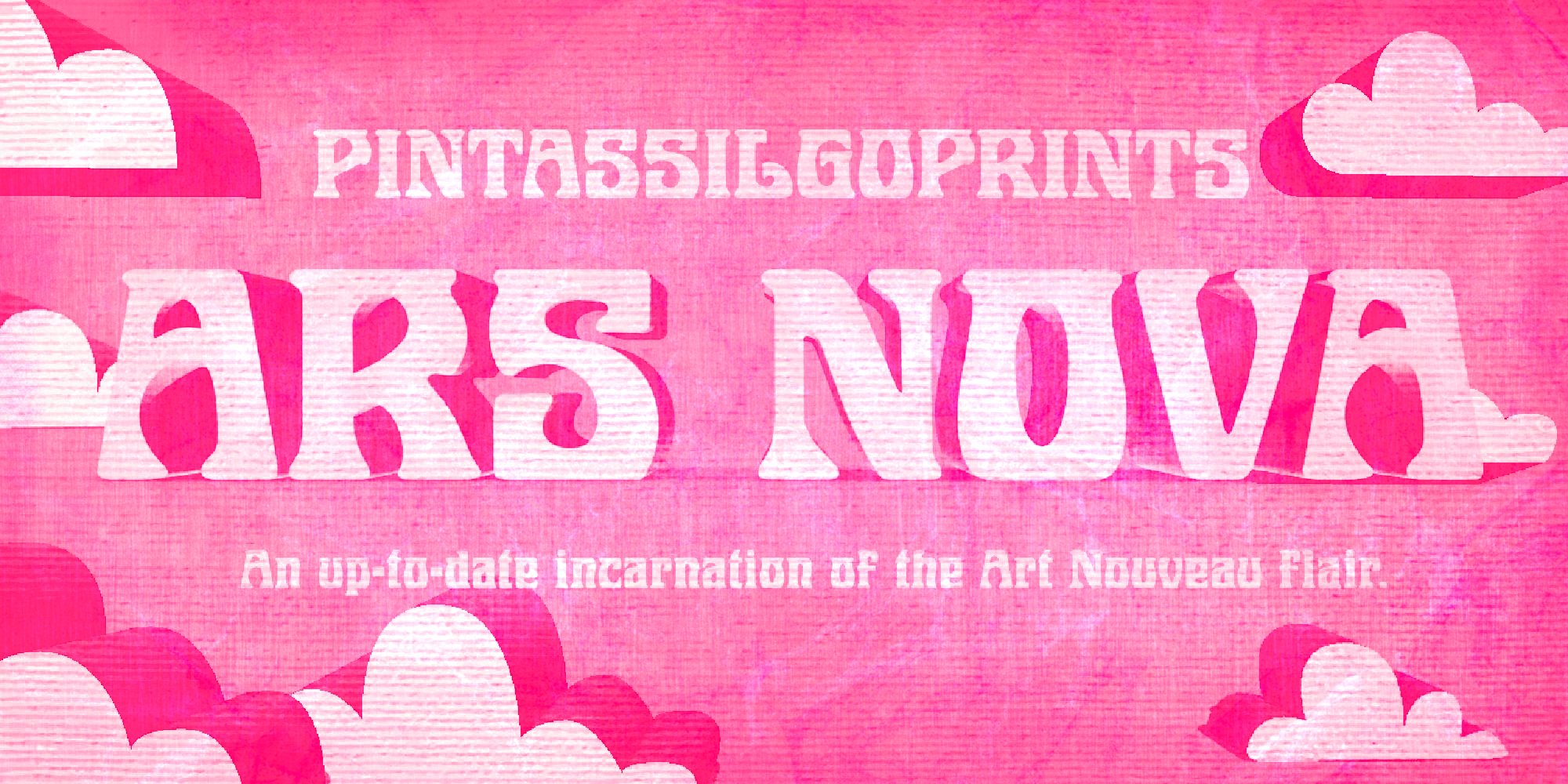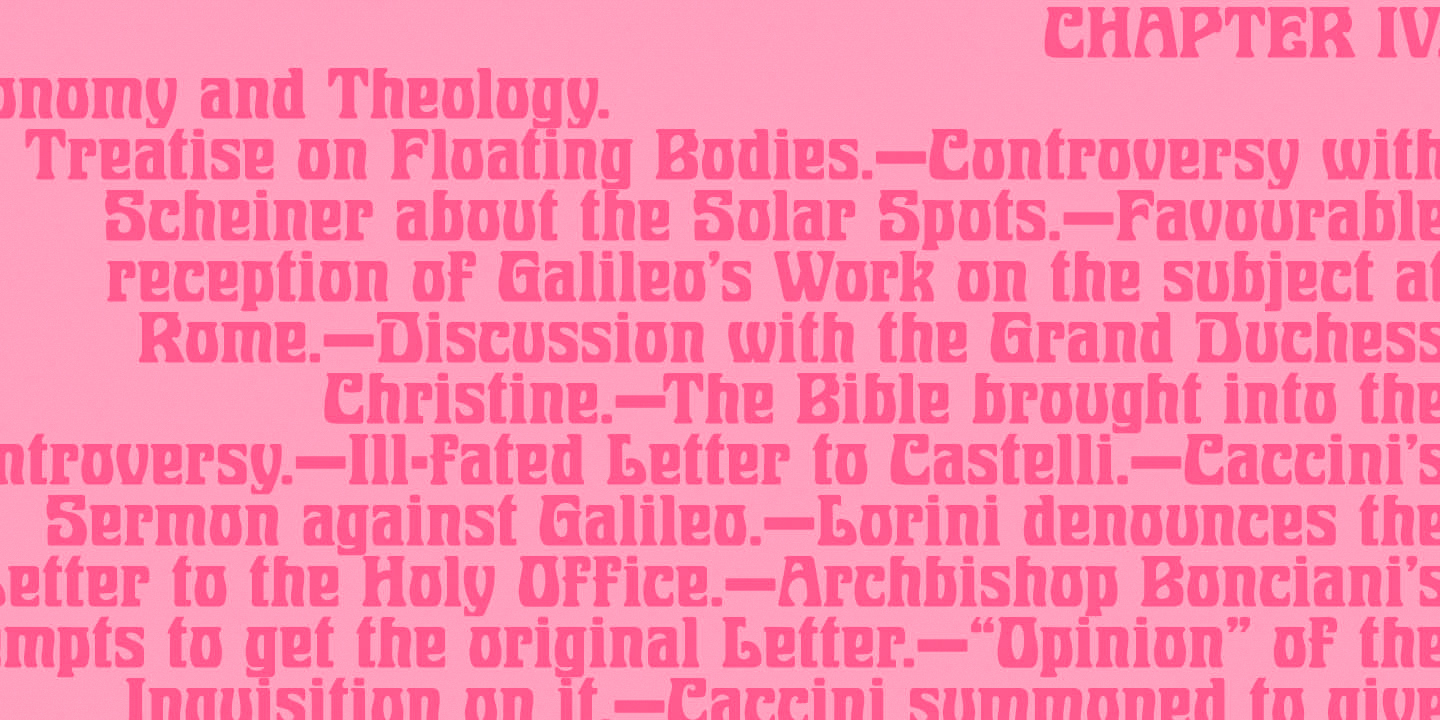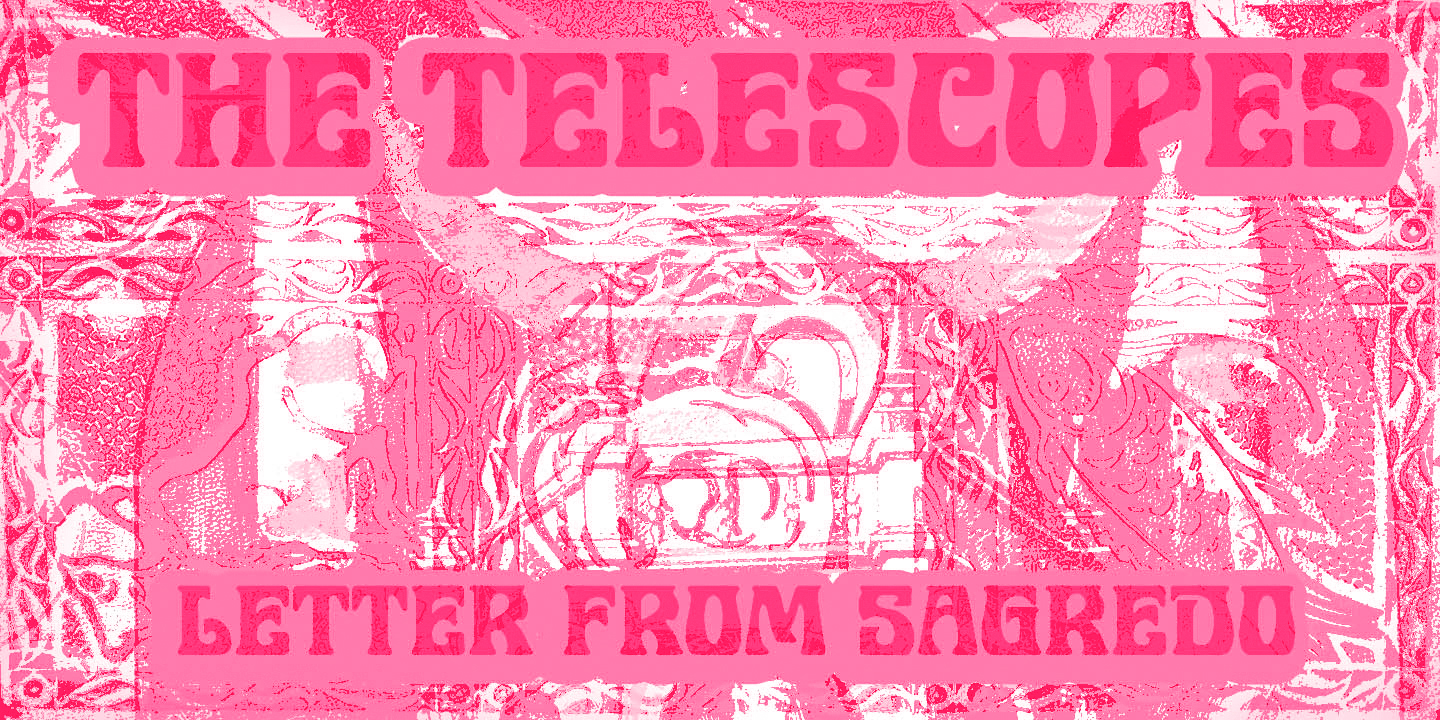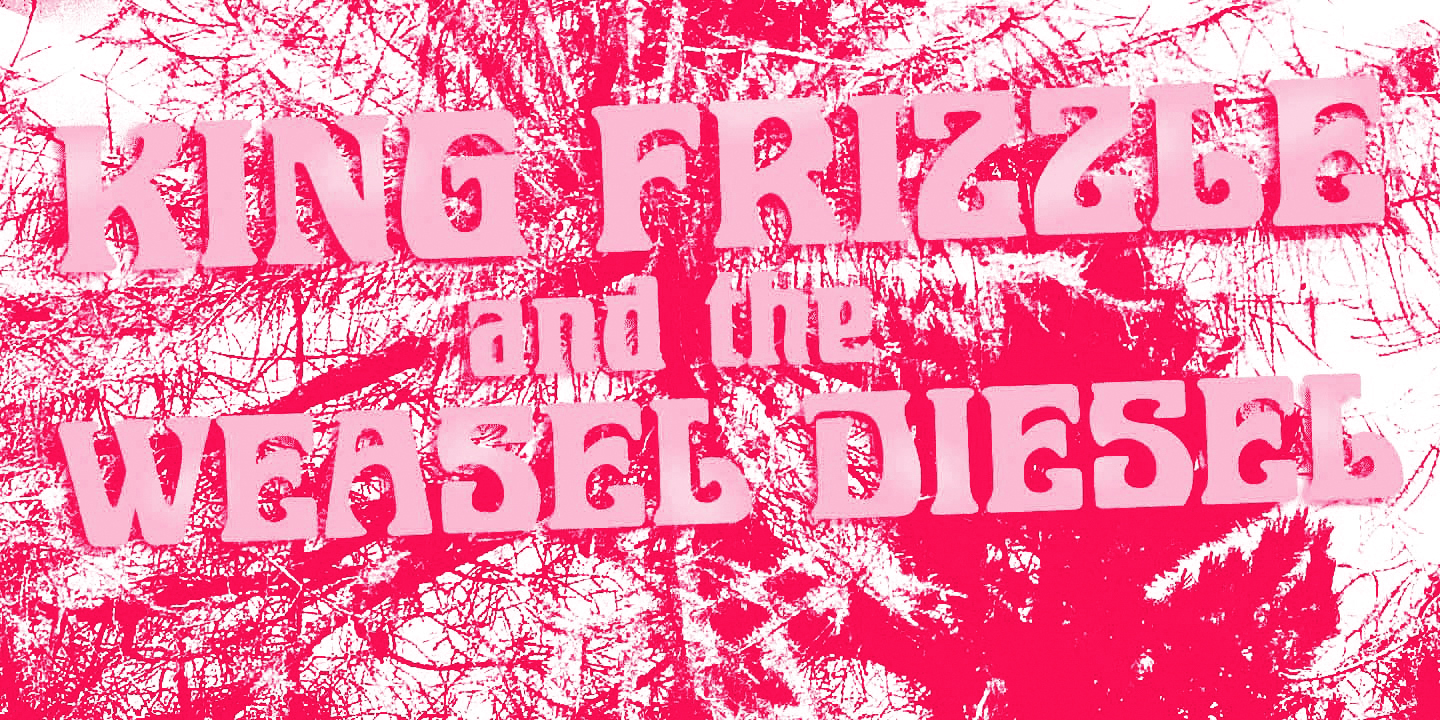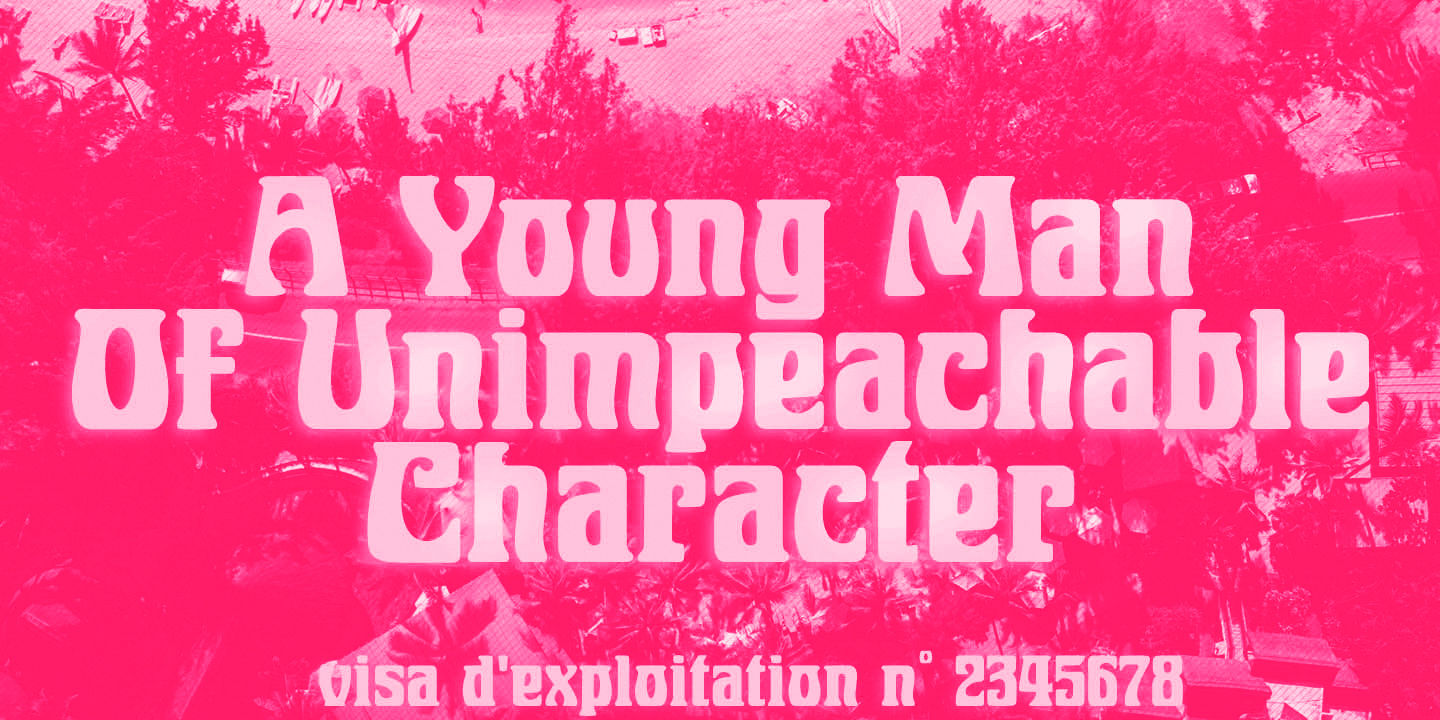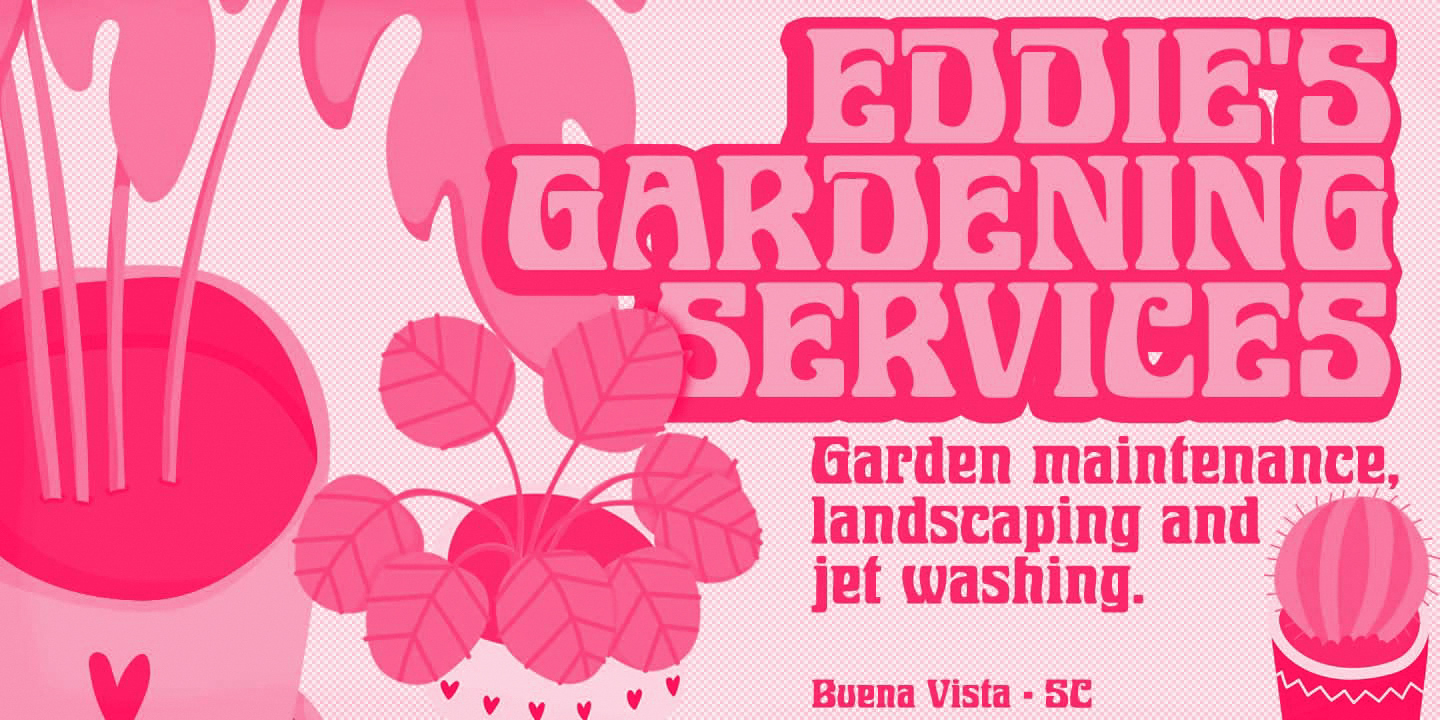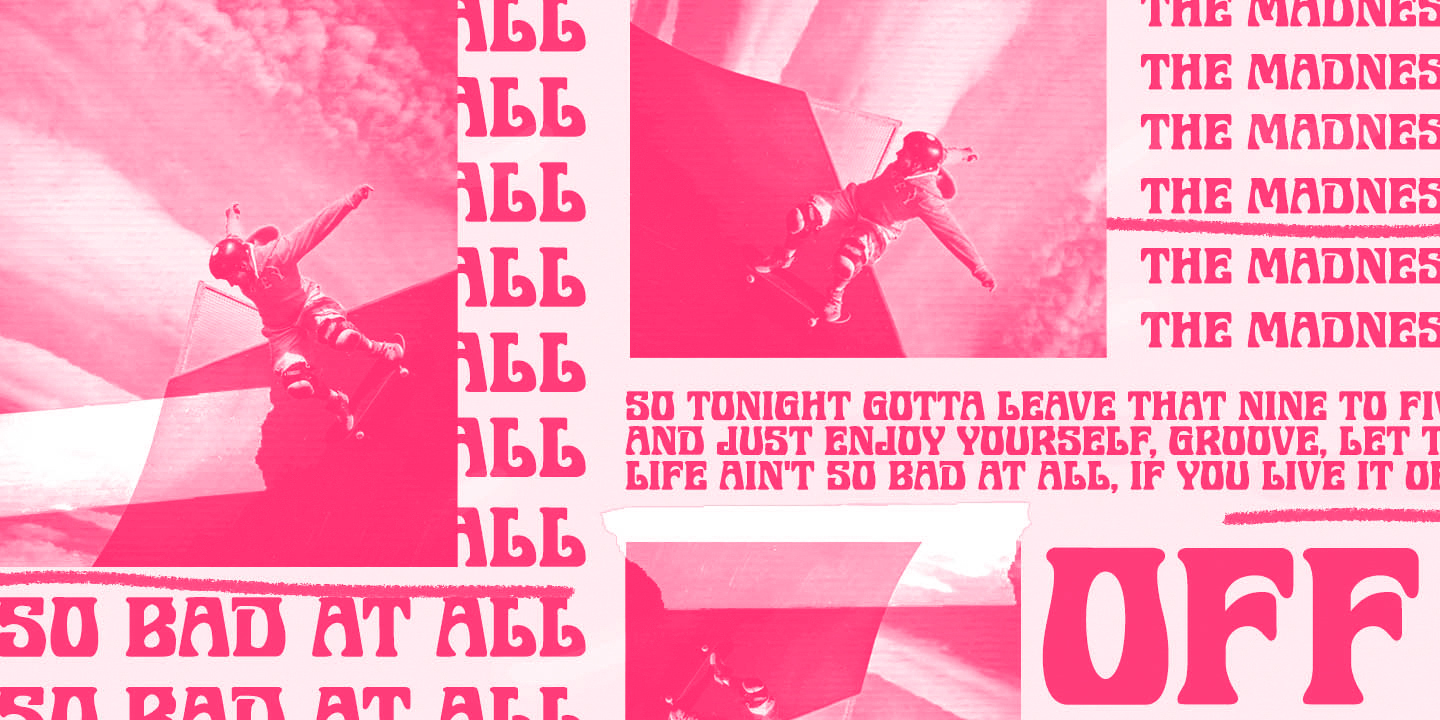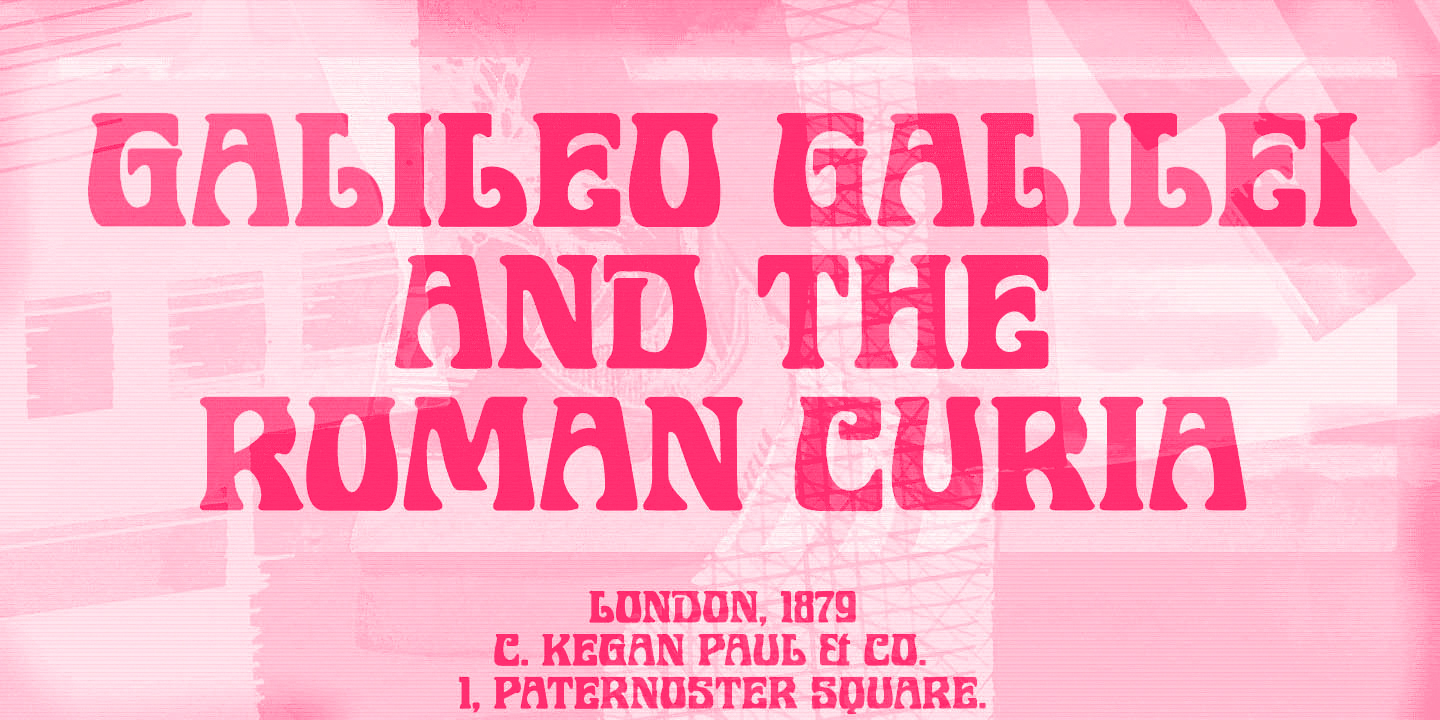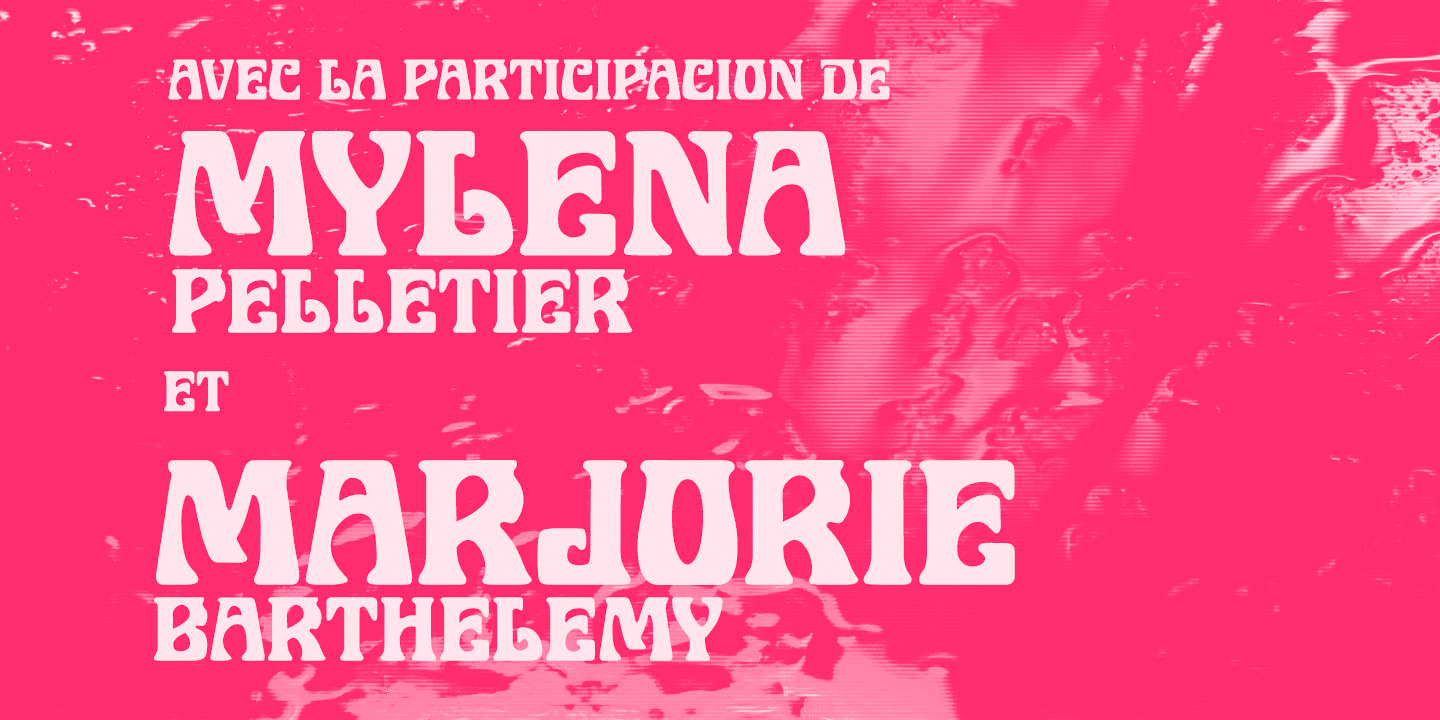
Ars Nova
Ars Nova Regular
Ars Nova is a decorative display typeface inspired by the Art Nouveau style. Its bold, squarish design is ideal for evoking the feeling of another time and place. Use it to add ornamental impact to vintage-inspired branding or artisanal packaging.